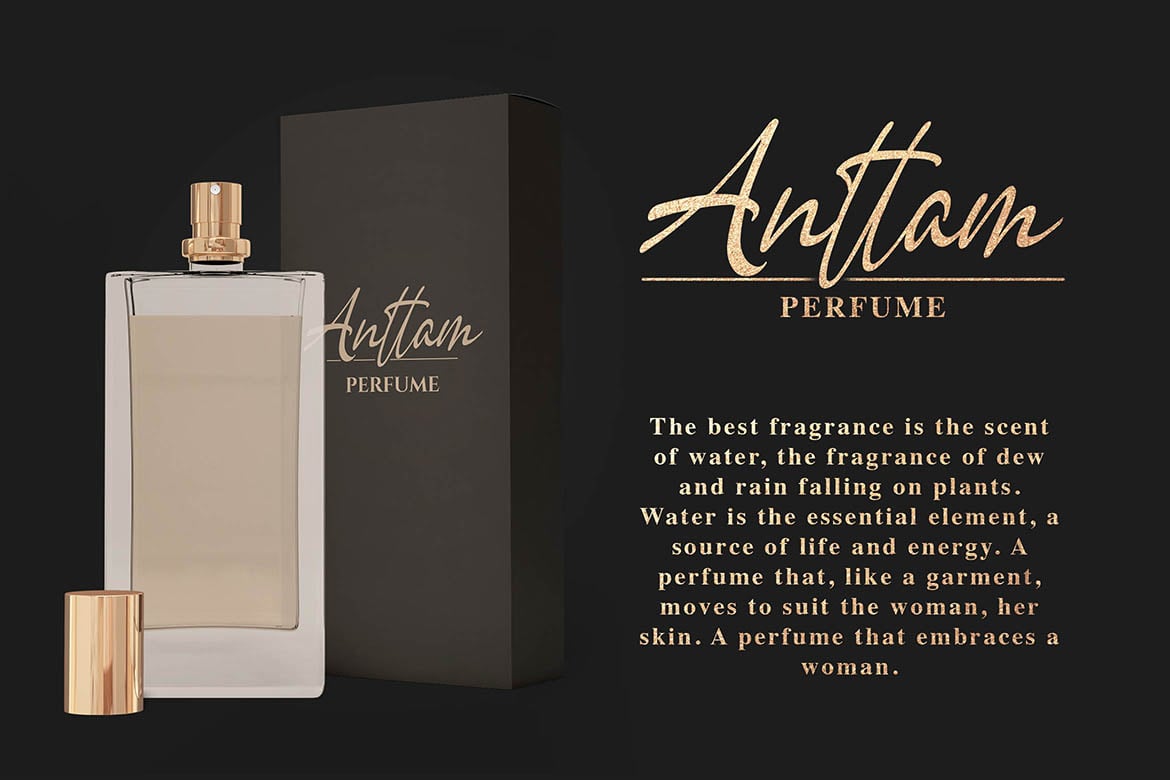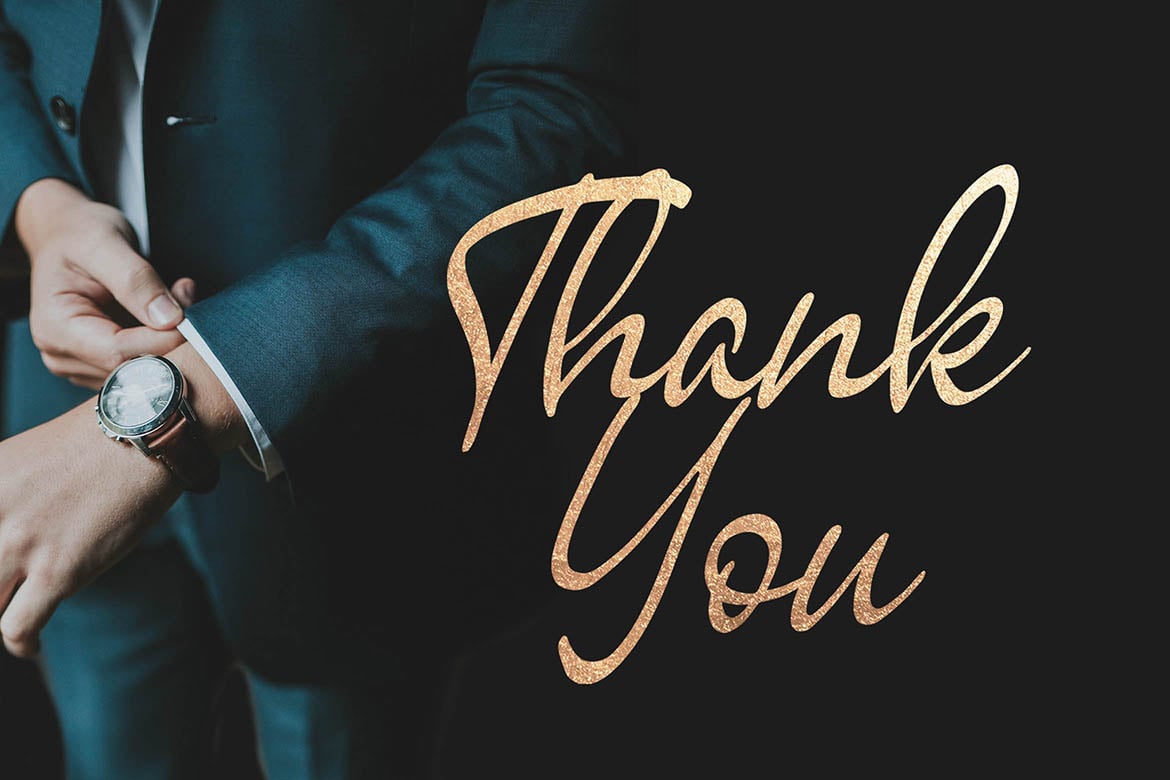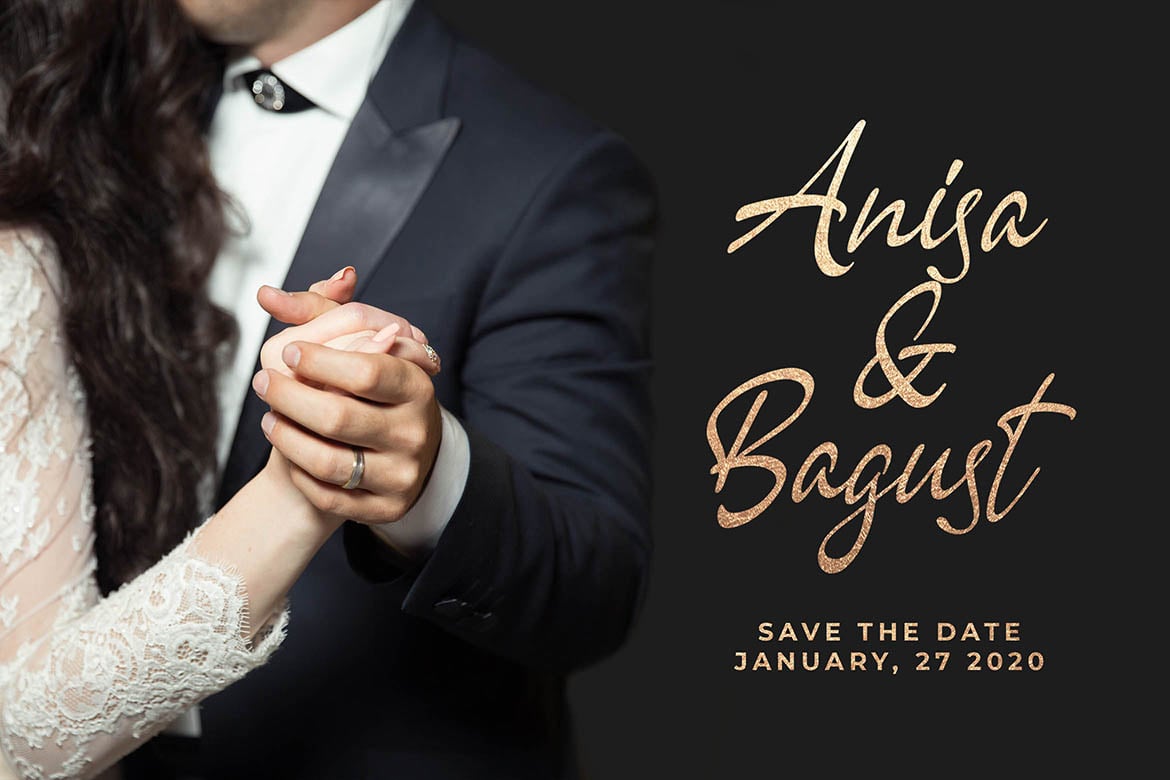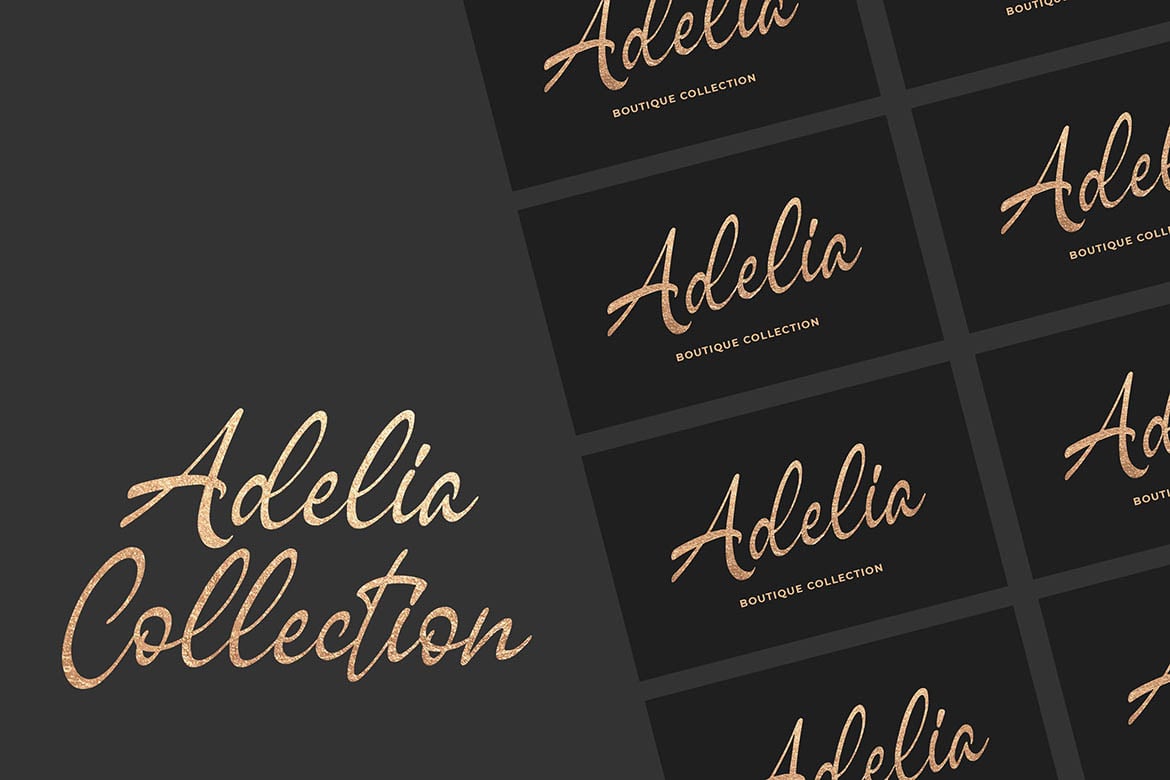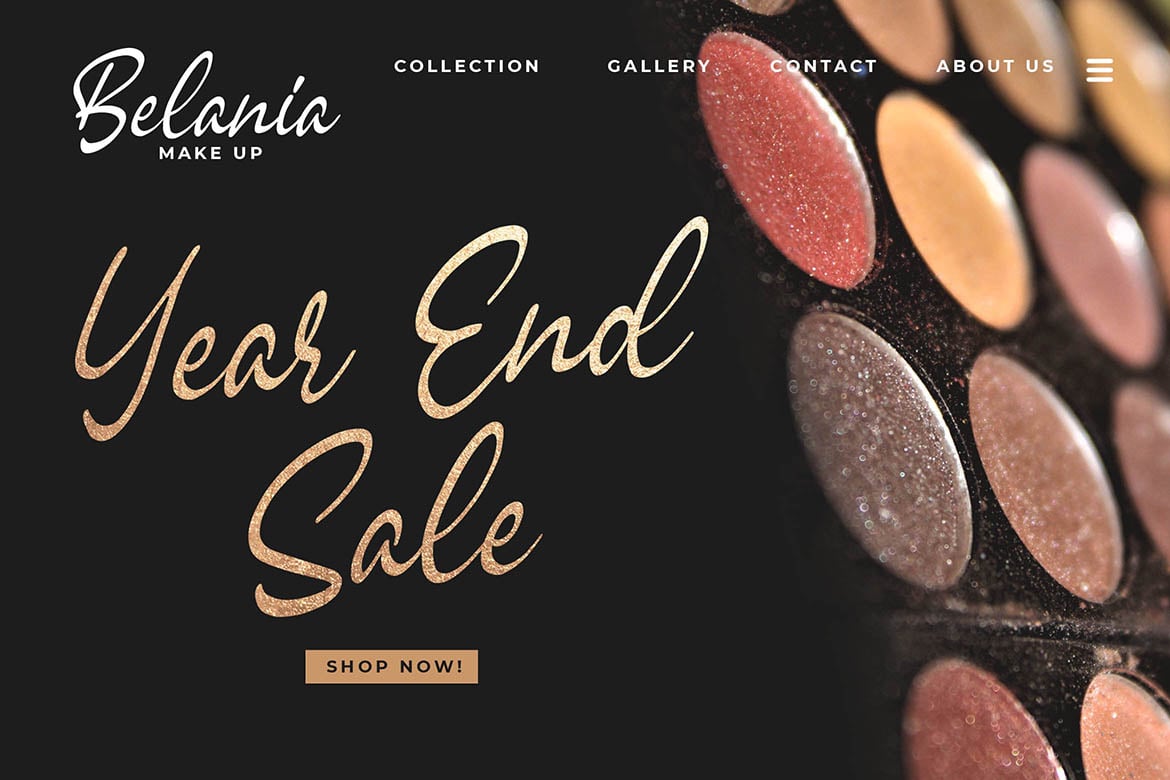
Sagesta – Luxury Script Font
Introducing of our new product the name is Sagesta Luxury Script Font. Sagesta inspired by signature style this font is a fun theme very good for signature, poster, fashion, wedding, branding etc